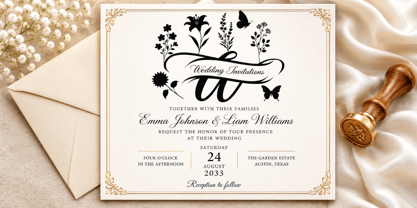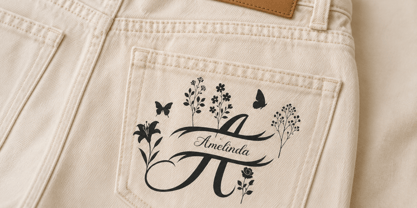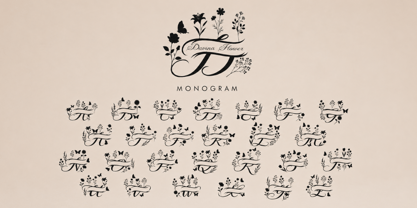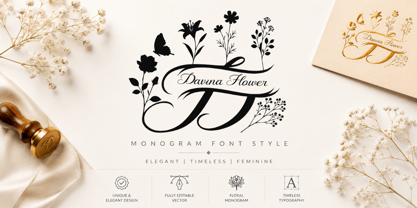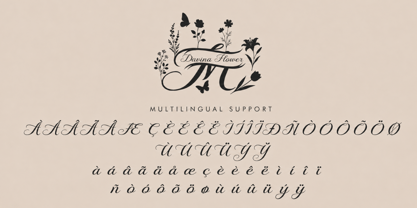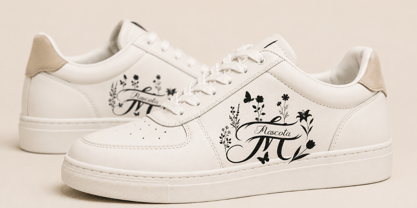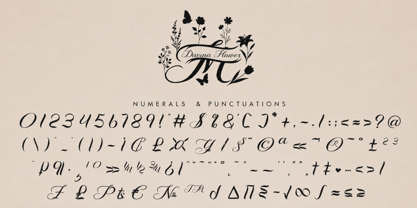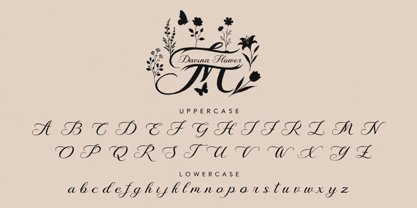
Davina Flower Monogram
The Davina Flower Monogram Font Family was designed by Isroni Yoga Prasetya and published by Yoga Letter. Davina Flower Monogram contains 2 styles and family package options. More about this family
Davina Flower Monogram is an elegant and timeless monogram font design, combining graceful handwriting with delicate floral elements. Featuring beautifully crafted initials adorned with flowers, leaves, and botanical accents, this font is perfect for wedding branding, boutique logos, floral businesses, invitations, packaging, and luxury stationery. Its feminine and sophisticated style creates a memorable visual identity while maintaining a refined and professional appearance. Fully editable and versatile, Davina Flower Monogram adds a touch of charm, romance, and exclusivity to any creative project.